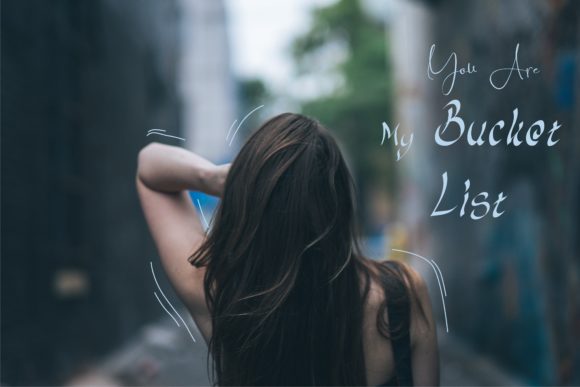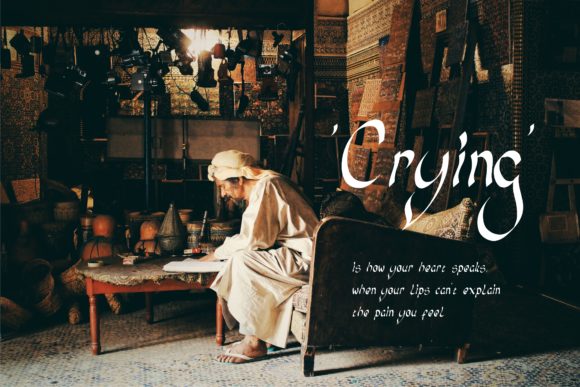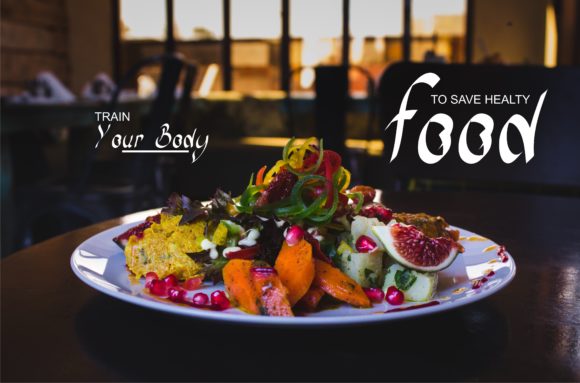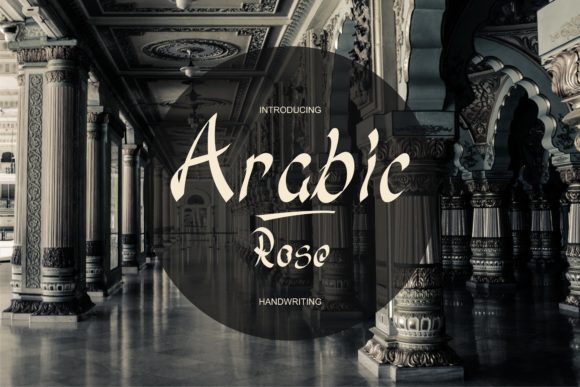
Arabic Rose Font
The Arabic Rose is an unique script font. It was inspired by the Arabic culture and is perfect for layouts, quotes, branding, and much more!